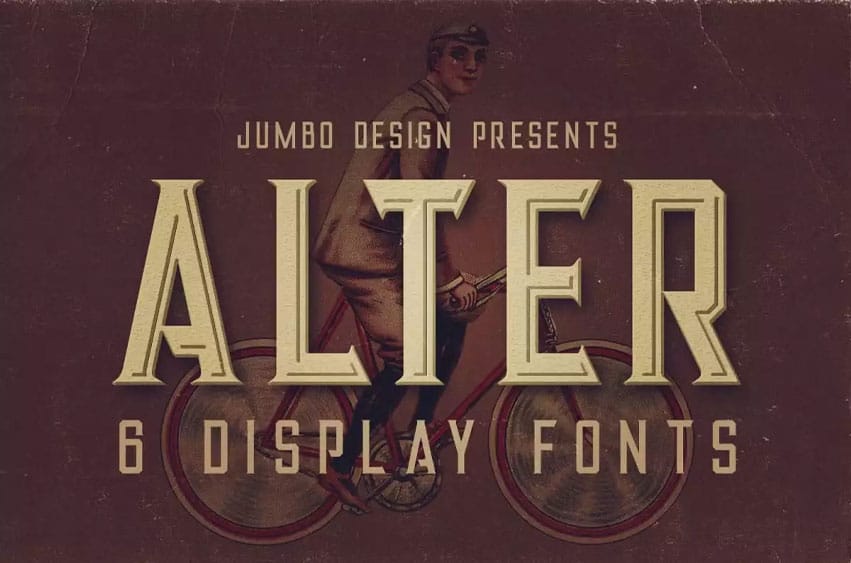
Alter Font serif typeface stands as an exclusive customized font which creates a retro nostalgic vintage experience. The font pack includes six different style options, which are Regular, Grunge, Inline and Inline Grunge and Bold Inline Grunge.
This font excels for projects that need strong, lasting designs, whether they are logos, posters or packaging or branding applications.